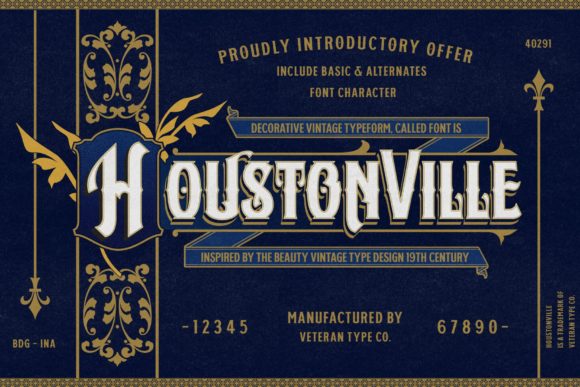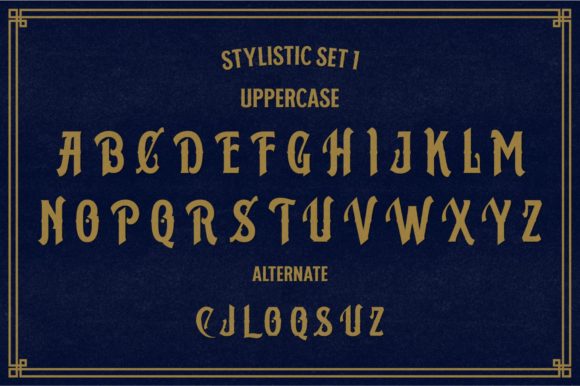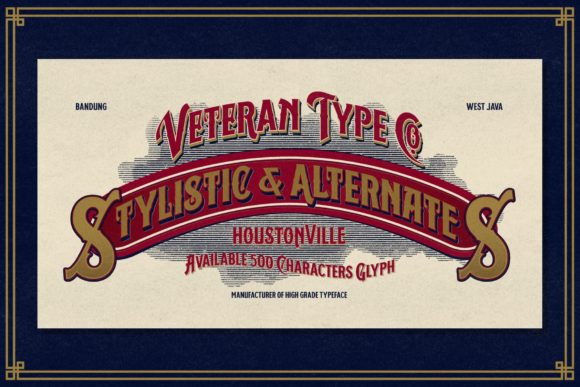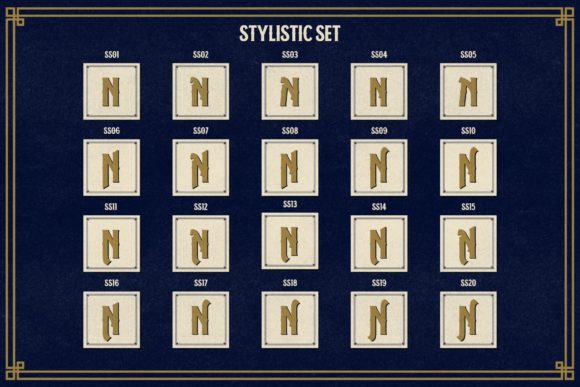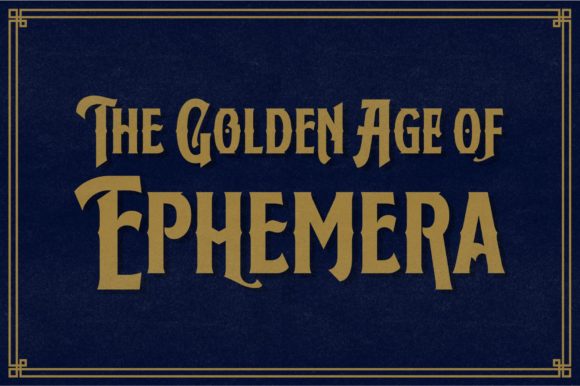
About Houstonville Font
Houstonville is a bold, vintage styled display font. Imposing and unique, this font will make each of your designs stand out. Add it confidently to your projects, and you won’t be disappointed.